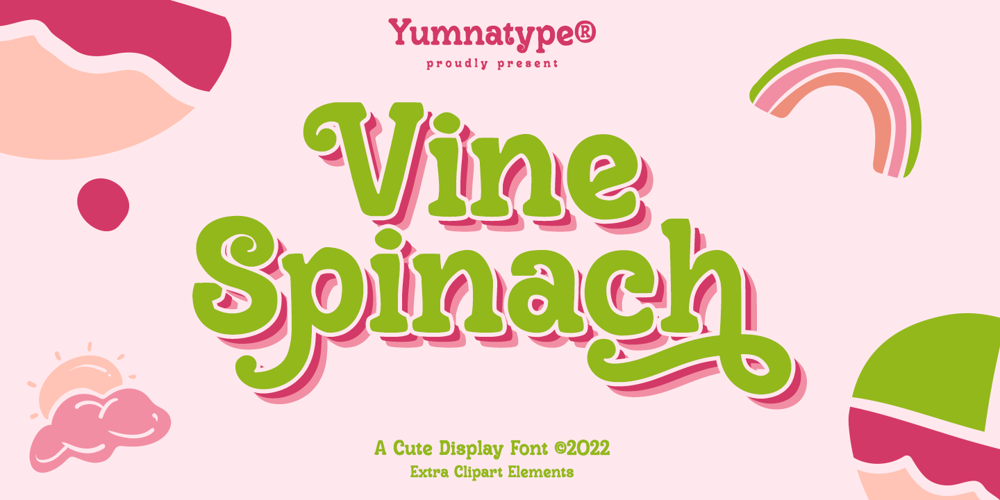
Vine Spinach
Vine Spinach font
Vine Spinach Font Family was designed by Donis Miftahudin and published by Yumna Type. Vine Spinach contains 2 styles and family package options. Vine Spinach is a beautifully designed display font. The round and shadow style applied to the characters gives this font cute feel. While it’s easy to read, the dramatic bold and heavy style is very suitable to be used to create titles and logos. You also get illustrations as special extra that you can use as you wish. Features: Stylistic Sets Swashes Multilingual Supports Uppercase and lowercase PUA Encoded Numerals and Punctuation This font would looks great on your branding, logos, social media quotes, stickers, posters, wall art, merchandise, social media, and many more. Get more inspiration about how to use it by seeing the font preview.Thank you for purchasing our fonts. If you have any further questions, don’t hesitate to contact us. Happy Designing.